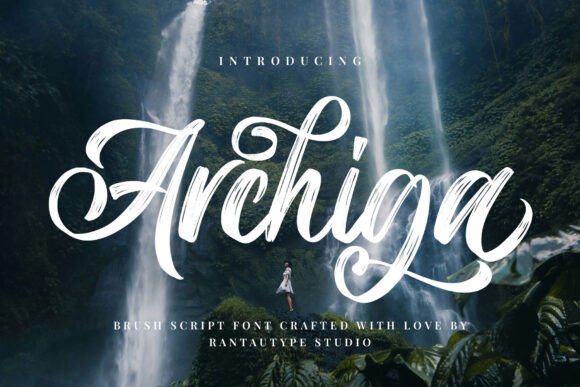
Introducing Archiga Font: The Ultimate Brush Font for Creative Projects
Are you looking for a font that can add a touch of authenticity and sophistication to your design projects? Look no further than Archiga Font, a brush font with a unique hand-crafted texture that is sure to make your designs stand out. In this article, we’ll take a closer look at Archiga Font and explore its features, benefits, and uses.
What is Archiga Font?
Archiga Font is a brush font that boasts a fresh and sophisticated style, perfect for adding a handwritten touch to your design projects. Its authentic hand-crafted texture gives it a unique and organic feel, making it ideal for creative endeavors that require a personal touch.
Whether you’re working on a logo, advertisement, watermark, or any other design project, Archiga Font is the perfect choice. Its versatility and flexibility make it suitable for a wide range of applications, from chic lifestyle designs to corporate branding and product design.
Features of Archiga Font
So, what makes Archiga Font so special? Here are some of its key features:
- Authentic hand-crafted texture: Archiga Font has a unique, organic feel that is reminiscent of handwriting.
- Fresh and sophisticated style: Its modern and elegant design makes it perfect for a wide range of applications.
- Detailed texture: Archiga Font adds a level of detail and depth to your designs, making them more attractive and engaging.
- Versatile: Suitable for a wide range of design projects, from logos and advertisements to watermarks and corporate branding.
Benefits of Using Archiga Font
So, why should you choose Archiga Font for your design projects? Here are some of the benefits of using this amazing brush font:
- Adds a personal touch: Archiga Font’s hand-crafted texture gives your designs a personal and human touch.
- Increases engagement: Its unique and organic feel makes your designs more attractive and engaging.
- Versatile: Suitable for a wide range of applications, from creative projects to corporate branding.
Uses of Archiga Font
So, what can you use Archiga Font for? The possibilities are endless! Here are some ideas to get you started:
- Logos and branding: Use Archiga Font to create a unique and memorable logo for your brand.
- Advertisements: Add a touch of elegance and sophistication to your ads with Archiga Font.
- Watermarks: Use Archiga Font to create a professional-looking watermark for your photography and designs.
- Stationery and packaging: Add a personal touch to your stationery and packaging with Archiga Font.
- Corporate branding: Use Archiga Font to create a consistent and professional brand image.
- Product design: Add a touch of elegance and sophistication to your product design with Archiga Font.
- Labels and business projects: Use Archiga Font to create professional-looking labels and business projects.
Tips for Using Archiga Font
Here are some tips for using Archiga Font effectively:
- Use it sparingly: Archiga Font is best used sparingly, as too much of it can be overwhelming.
- Pair it with other fonts: Experiment with pairing Archiga Font with other fonts to create a unique and interesting look.
- Adjust the size and color: Adjust the size and color of Archiga Font to suit your design needs.
- Experiment with different effects: Try adding different effects, such as texture or shading, to give Archiga Font a unique look.
In conclusion, Archiga Font is a versatile and elegant brush font that is perfect for adding a personal touch to your design projects. Its authentic hand-crafted texture, fresh and sophisticated style, and detailed texture make it a great choice for a wide range of applications.
Whether you’re a designer, artist, or simply someone looking for a unique font for your creative projects, Archiga Font is definitely worth checking out. So why not give it a try and see how it can elevate your designs to the next level?